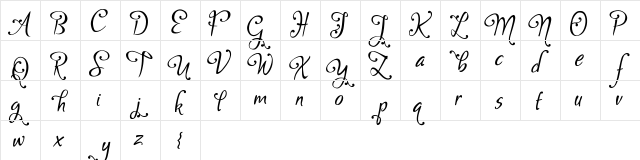
Gaby Demo
Design Context for Gaby Typeface
Gaby is a composed and adaptable typeface that performs quietly and consistently across a wide range of design contexts.